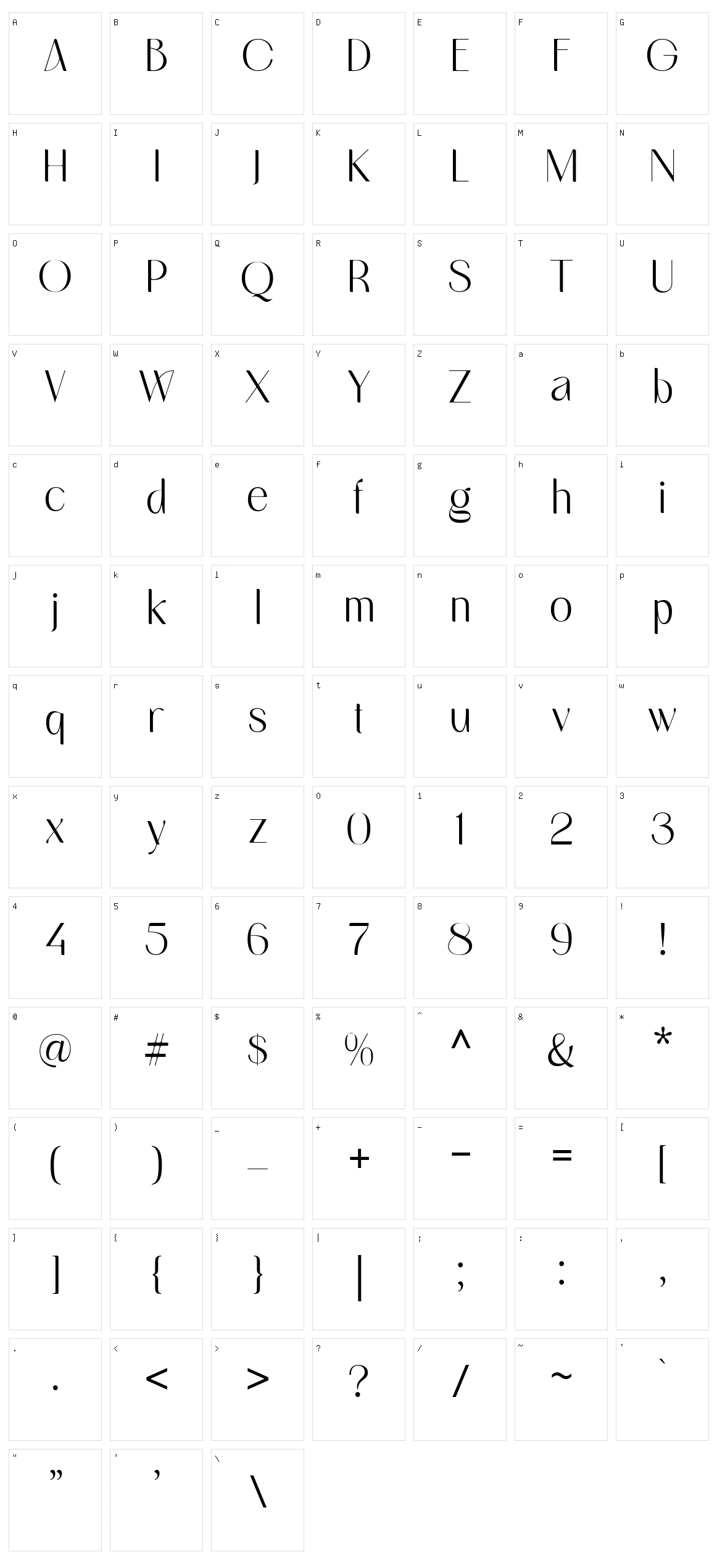
The free font Mythical Prince is carefully designed by Sign Studio, showcasing a thoughtful balance of creativity and usability and falls under the Sans serif font style. When you download the ZIP file, it contains only 71.29 KB of font files, making it lightweight and quick to download. Please review the license details below to understand permitted usage and distribution rights. If license information is not available, we recommend using this font for personal projects only or contacting the author directly for commercial usage permissions.